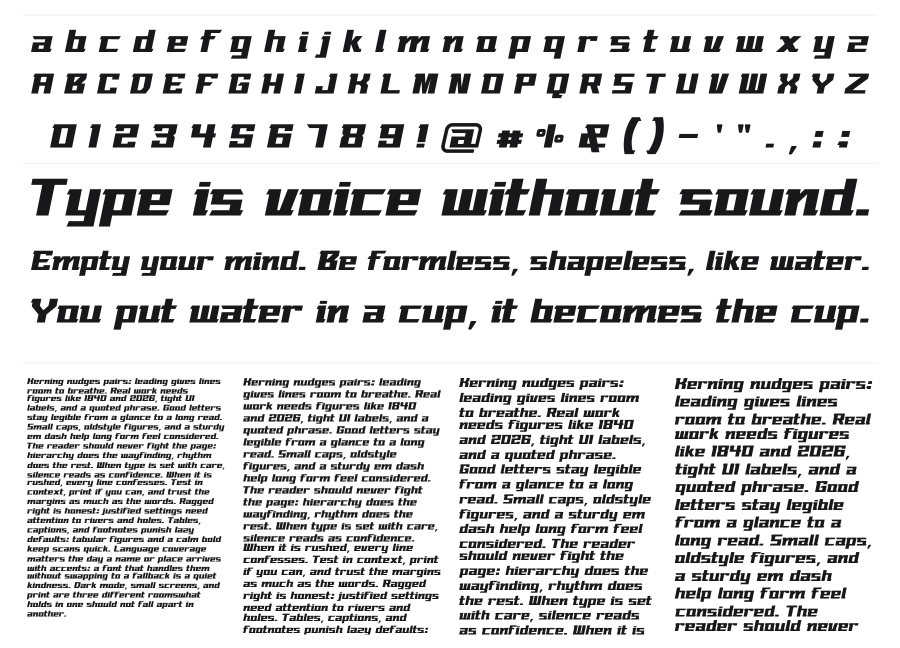
Rangver
Rangver is a heavy condensed italic display font with sharp diagonal cuts and a hard forward lean. The blocky construction and angled terminals evoke motorsport numbering, military stencils, and 1970s sci-fi titling all at once. It works best large, where the aggressive geometry can breathe.